Tired of the same fonts? Then maybe it's time to shake things up. After all, the power of a distinctive typeface to capture attention, convey personality and create memorable experiences can't be underestimated. And while that doesn't mean change is good simply for change's sake, it shouldn't be discounted either.
This month's collection of new typeface releases highlights the remarkable diversity within type design today. From whimsical unicase characters that seem sculpted from Play-Doh to sophisticated geometric sans serifs that pay homage to mid-century Modernism, these fonts demonstrate how type designers continue to find fresh approaches within established traditions.
In short, June's releases cater to every creative brief. Each typeface embodies a unique perspective, representing countless hours of craftsmanship and creative problem-solving from some of the industry's most innovative minds.
So, as you consider how to make your next design project stand out from the crowd, why not explore these typographic treasures? After all, in a world of visual sameness, the right typeface might be the perfect way to find your distinctive voice.
1. Clearly by Big Fog Foundry
A recent release from Brian Dove's Big Fog Foundry, Clearly is a flared typeface for display and headline use that has been expanded from its original single Light weight (released in 2023) to a comprehensive family of seven weights ranging from Light to Black.
Clearly occupies an interesting middle ground in its emotional tone. The soft curls of certain forms bring warmth that's balanced by sharp terminals elsewhere. This tension creates a typeface that adapts to various settings without sacrificing personality, making it remarkably versatile for a display face.
Drawing inspiration from Old-style and Victorian-era serifs as well as their contemporary interpretations, Clearly holds itself with elegance while remaining distinctive. Its condensed forms give the lighter weights a balance of strength and fragility, while the darker weights express a higher contrast. The designer recommends using Clearly at medium to large sizes for applications including book covers, logotypes, wrought iron gates, and—with a touch of wry humour—funeral home branding.
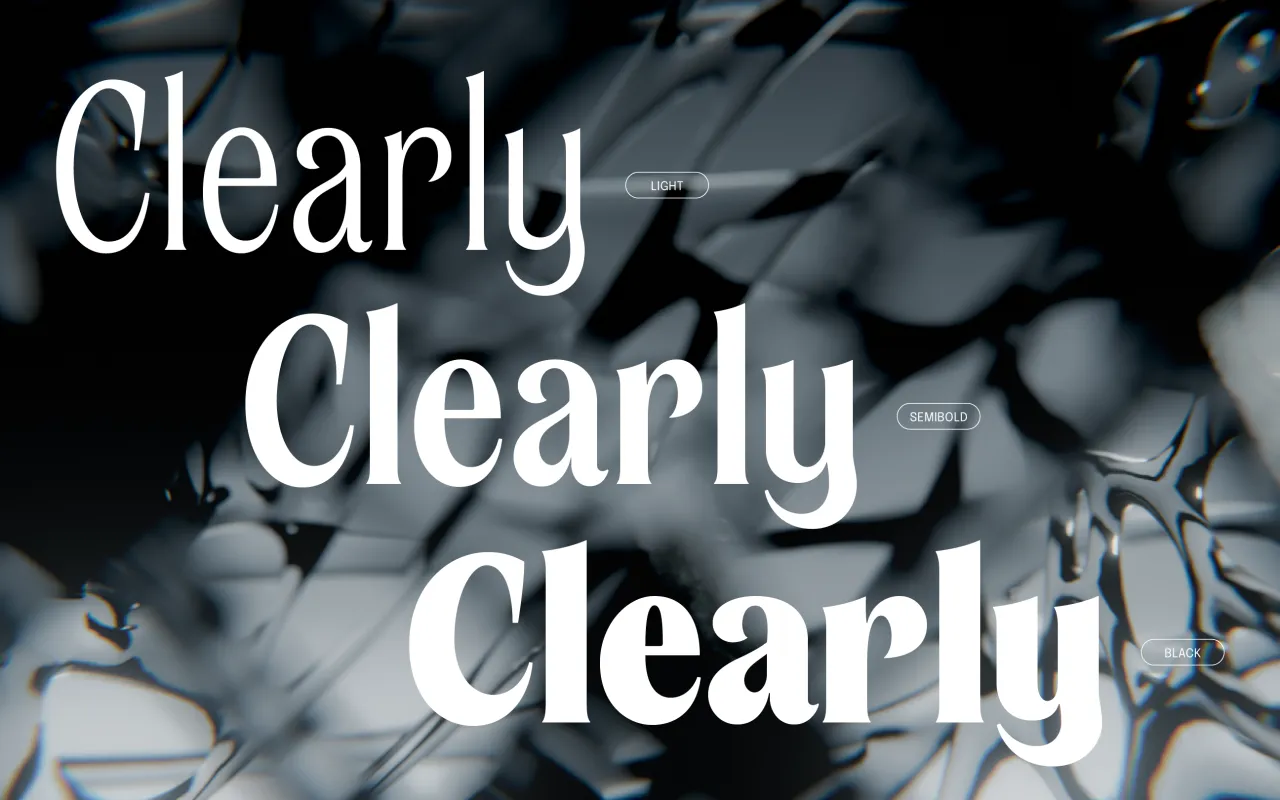
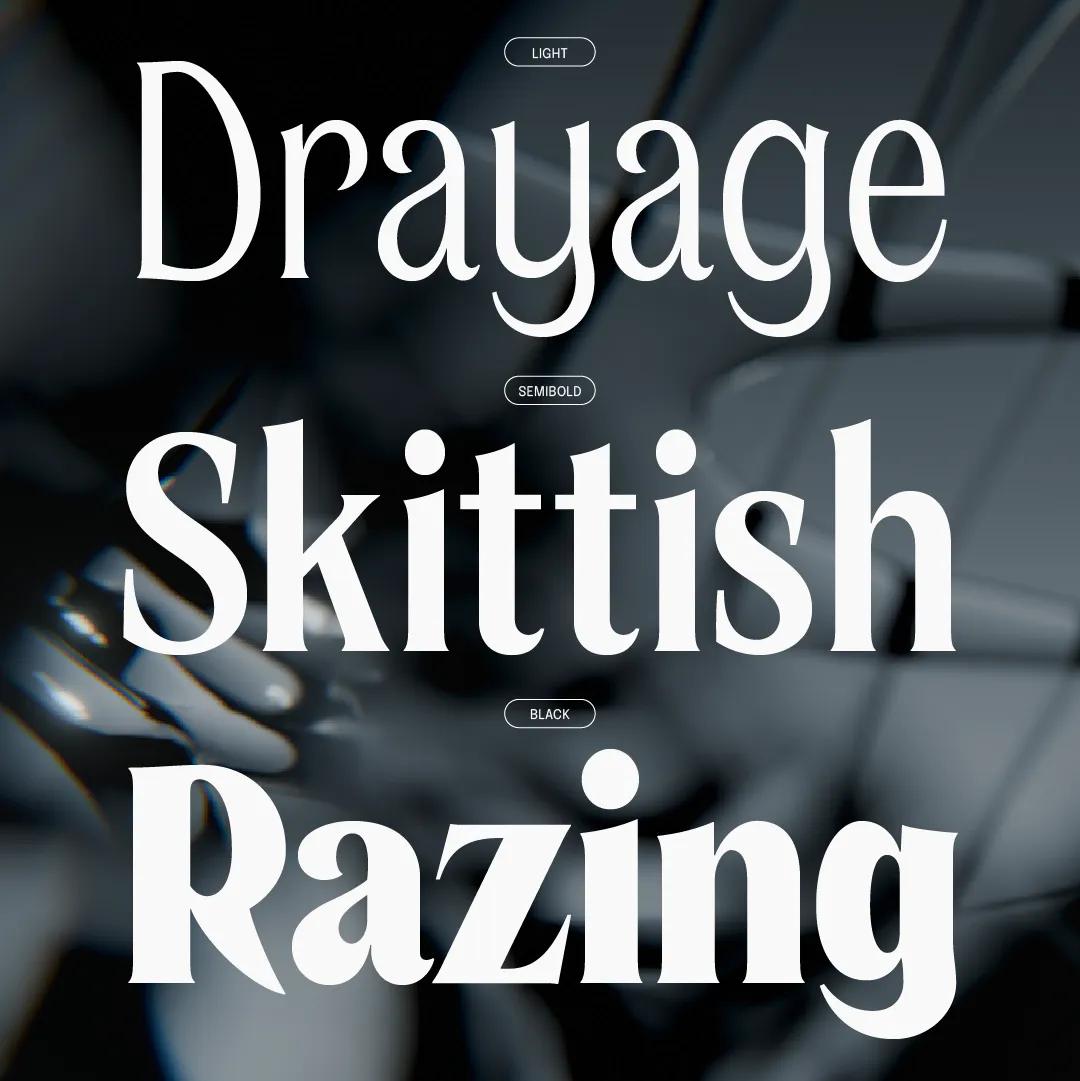
2. FL Rare by Contemporary Type
FL Rare is one of the premium typefaces that mark the launch of Contemporary Type's carefully curated font shop. After years of showcasing cutting-edge typography to a large Instagram community and co-organising the Inscript type-and-tech festival, the platform now brings together typefaces that combine high quality, fresh aesthetics, and unique design approaches.
Designed by Alex Slobzheninov, previously of &Walsh, FL Rare embodies all these values: an efficient grotesque infused with subtle traces of handwriting. Its clean shapes closed apertures, and low contrast place it firmly in the functional sans-serif category, but unexpected details reminiscent of pen movements give it a distinctive character uncommon for the genre.
3. Gilway Paradox by Art Grootfontein
From type designer and illustrator Art Grootfontein comes Gilway Paradox: an innovative sans serif with a unique dual-width design that creates visual rhythm and dynamic energy. Its most distinctive feature is its ability to toggle between character widths with a single click, utilising OpenType functionality, which opens up countless creative possibilities.
This versatile, rounded typeface balances warmth with motion and is available in three weights (Light, Regular, and Bold) plus matching italics. Each style maintains a playful yet polished tone that works across various applications, from branding and editorial layouts to packaging, fashion and beauty.
Gilway Paradox joins Grootfontein's earlier Gilway family, a playful, rounded sans-serif condensed typeface that includes four styles, including a shadow variant. With support for over 30 languages—including major European languages, as well as Afrikaans, Swahili, Filipino, and Zulu—this typeface offers both visual distinctiveness and global versatility.
4. Exat by Hot Type
Exat is an ambitious typeface from Marko Hrastovec's Hot Type foundry, paying homage to EXAT 51, the pioneering Croatian art and architecture collective of the 1950s. Inspired by the modernist ideals of this influential group, Exat captures the essence of the International Style while incorporating extraordinary width and weight options.
The typeface began with the redrawing of a single letter "a" from Ivan Picelj's self-published "Edition a" art booklets, which featured a modified version of Helvetica. From this starting point, Hot Type constructed an entire typographic world that strikes a balance between form and function, as well as neutrality and character.
Exat comprises an impressive 21 styles across three width subfamilies (Condensed, Normal, and Wide) and seven weights (from Extra Light to Black), all available as a variable font for maximum flexibility. There are 1,715 glyphs per style, including multiple numeral sets, extensive currency symbols, circled and squared characters, math symbols, arrows, and even a dingbat set.
5. ABC Solar by Dinamo
ABC Solar is a highly customisable geometric sans from Berlin-based Dinamo Typefaces that combines influences from iconic early 20th-century typefaces such as Kabel, Vogue, Metro No. 2, Johnston, Erbar-Grotesque, and Futura. The result is neither a simple remix nor a straightforward homage but rather a contemporary interpretation that carves its own identity.
One of Solar's defining characteristics is its round shapes, exemplified by its almost circular capital O. While some letters feature simple construction (like the single-storey 'a' and cross-like 't'), the open counters and straight terminals in characters like 'c' and 's' break from strict geometry to create a sense of fluidity.
The typeface includes eight stylistic sets that reference various geometric and humanistic designs from the early 20th century, allowing designers to dramatically alter its appearance. The family is divided into two subfamilies: Solar, optimised for legibility and functionality, and Solar Display, designed for tight and punchy headlines. With its extensive weight spectrum and matching italics, ABC Solar offers exceptional versatility while maintaining a distinctive character.
6. FH Oscar Pro by Typografische
FH Oscar Pro is the latest addition to founder Fatih Hardal's recently renewed catalogue at Typografische. This neo-grotesque font combines the structural logic of early grotesques, such as Akzidenz and Breite Grotesk, with softened geometry, introducing rounded corners that reduce visual tension and enhance readability.
Designed for versatility across both screen and print applications, FH Oscar Pro includes comprehensive language support for Latin, Greek, and Cyrillic scripts. Its thoughtful collection of stylistic alternates makes it particularly well-suited for editorial design and user interfaces.
The typeface exemplifies Typografische's approach to creating contemporary interpretations of classic forms. FH Oscar Pro successfully balances typographic neutrality with distinctly human touches, resulting in a versatile system that maintains personality without sacrificing functionality.
7. Honeymoon by Dinamo
Currently available only through Dinamo's "Early Access" program, Honeymoon represents a truly experimental approach to script typography. This unconventional typeface combines two seemingly contradictory concepts—monospaced construction and flowing script forms—to create something genuinely unique.
Described as a "true Dinamo-style monospaced Script typeface for all our friends and lovers," Honeymoon embraces romantic features like single-width uppercase alternates, extravagant swashes, and other celebratory alternates. The design team of Fabian Harb and Arnaud Chemin, with production by Hugo Jourdan, have created a typeface that challenges expectations while maintaining coherence and usability.
The constraining monospaced structure creates an interesting tension with the expressive, flowing nature of script typography, resulting in a typeface that feels both systematic and exuberant. For designers seeking something truly different, Honeymoon offers a refreshing departure from conventional script options.